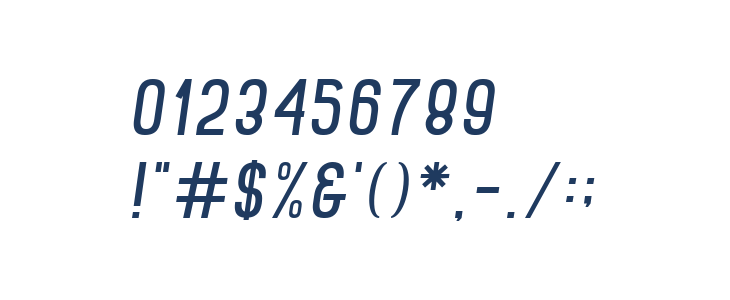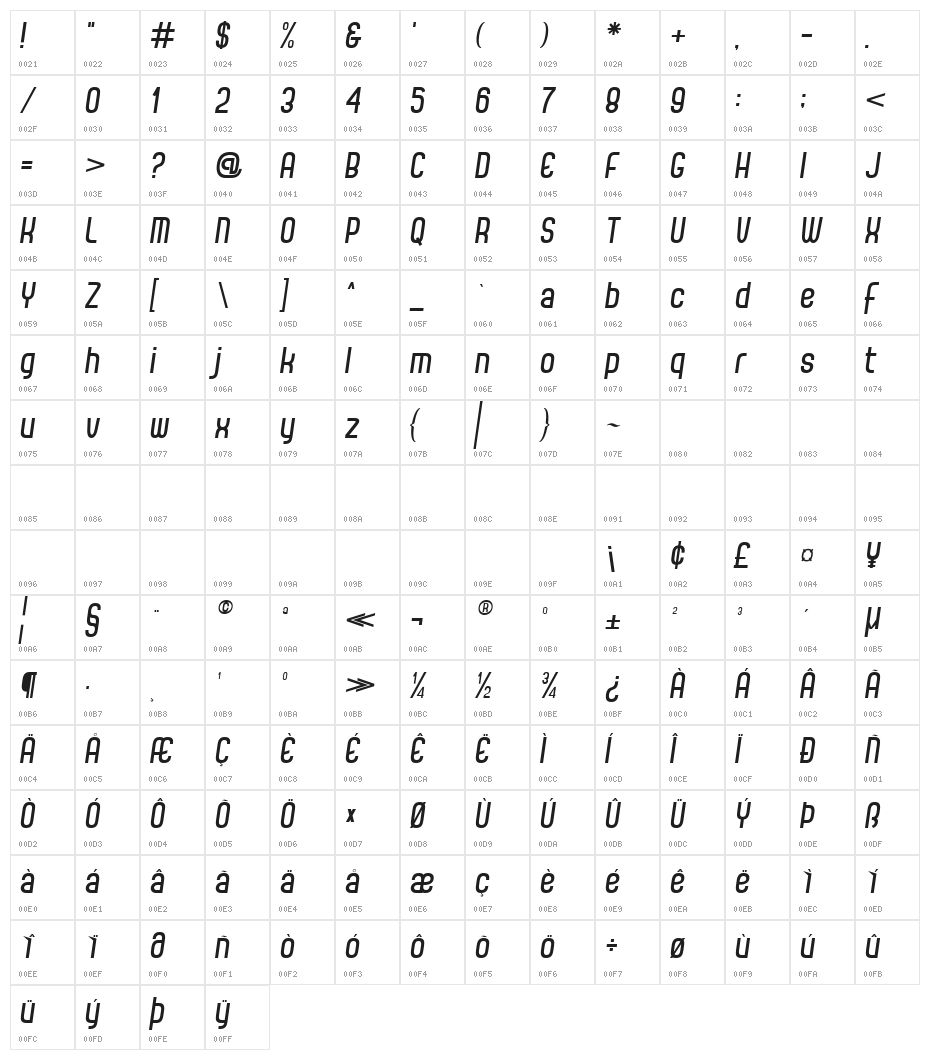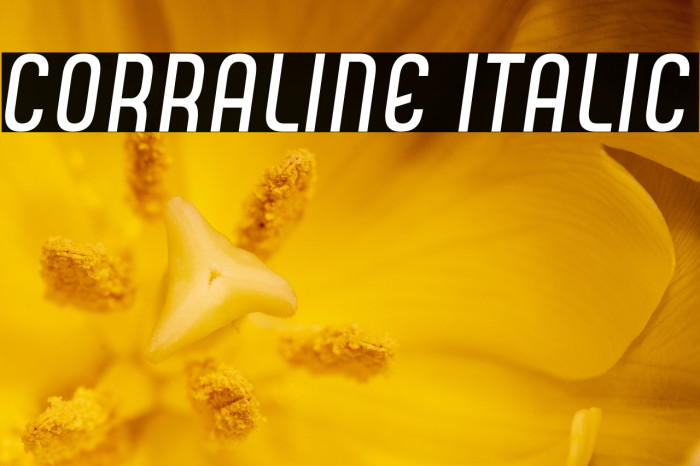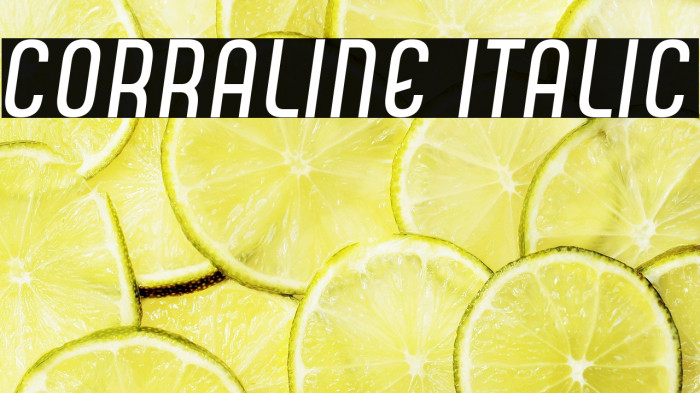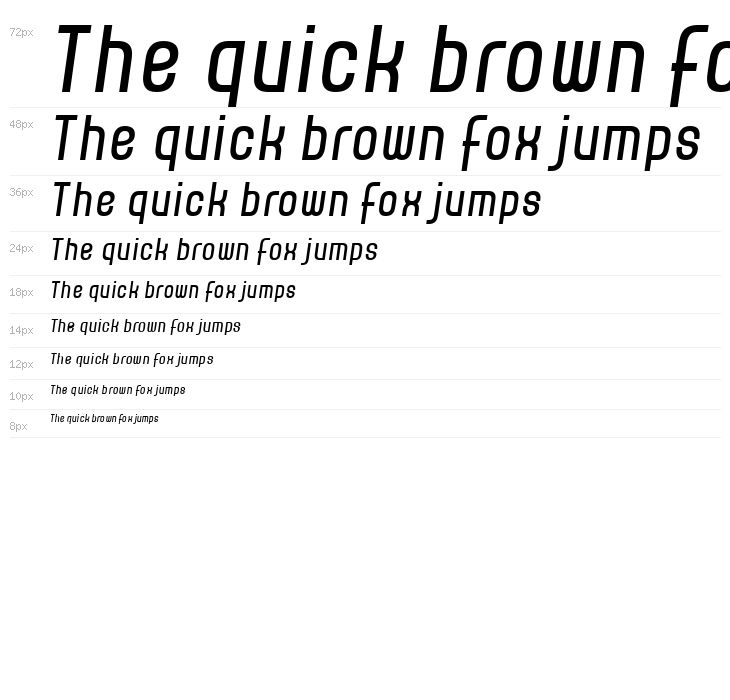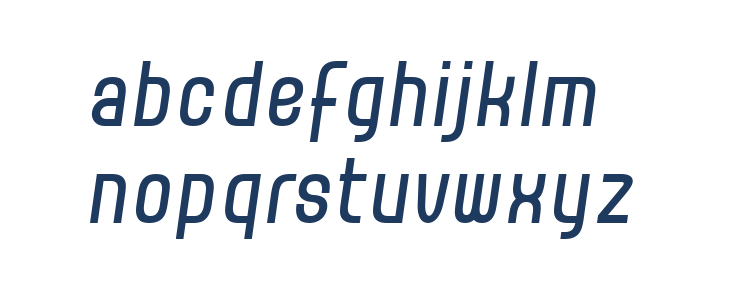
CORRALINE ITALIC Font
CORRALINE ITALIC Description
This font features a modern, italicized style with a sleek and streamlined appearance. The characters are slightly condensed, giving it a compact look while maintaining readability. The strokes are consistent in width, offering a low contrast that contributes to its clean and uniform design. The rounded edges and smooth curves provide a contemporary feel, making it suitable for various digital and print applications. The font's overall aesthetic is both professional and approachable, ideal for projects that require a touch of elegance without sacrificing clarity.